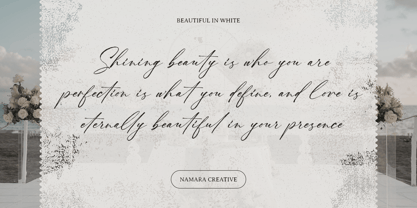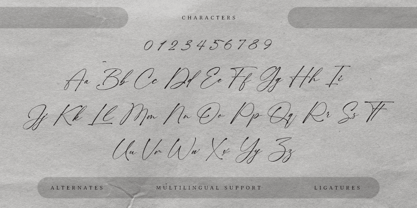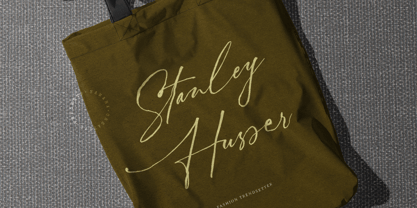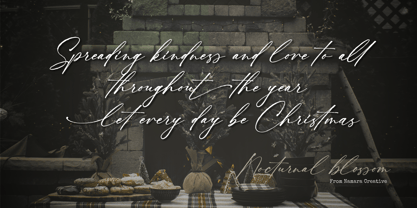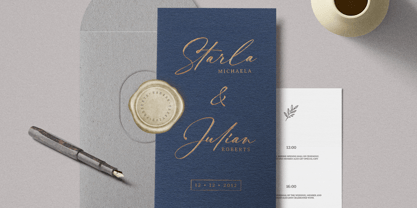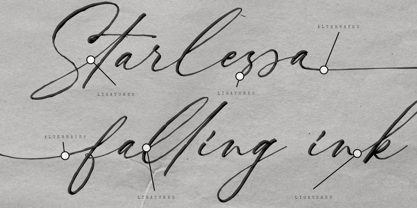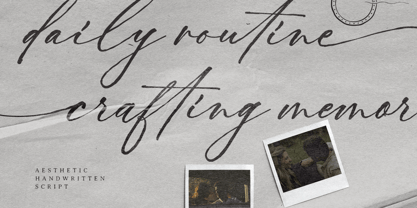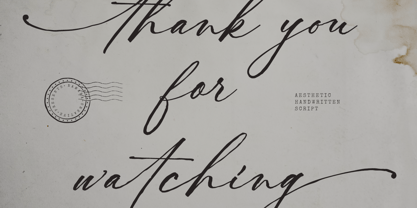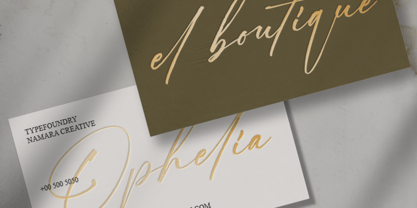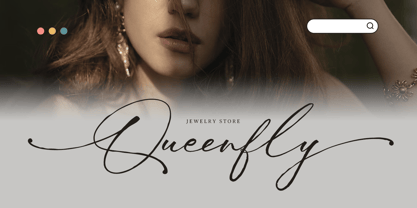
Nocturnal Blossom
by Namara Creative Studio
The Nocturnal Blossom Font Family was designed by Eep Apringga and published by Namara Creative Studio. Nocturnal Blossom contains 1 styles. More about this family
Crafted with precision and artistic intention, Nocturnal Blossom captures the essence of handwritten elegance. Its flowing curves, refined stroke contrast, and organic rhythm make it a powerful tool for designers seeking a sophisticated and timeless script font.
Inspired by the quiet elegance of ink on paper, it brings an organic, romantic quality to weddings, branding, packaging, and editorial design.
The font includes a rich set of features such as ligatures and alternates (beginning and ending tails, etc.), allowing seamless letter connections and natural variations. This ensures that every word appears dynamic and visually engaging.
Features:
• Full uppercase & lowercase alphabet
• Extensive ligature set
• Uppercase & Lowercase alternates with tail swashes
• Features alternates for unique lettering flexibility
• Multilingual support for international use
Designers: Eep Apringga
Foundry: Namara Creative Studio